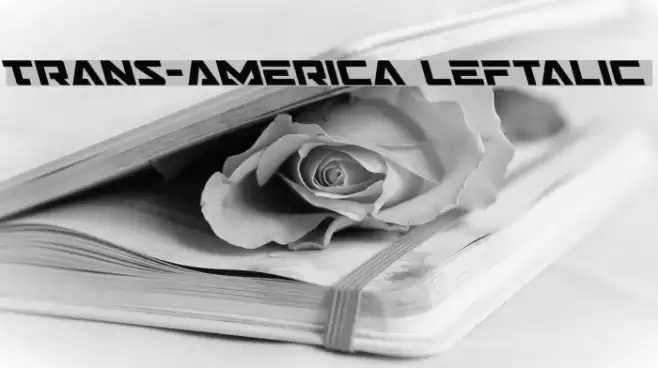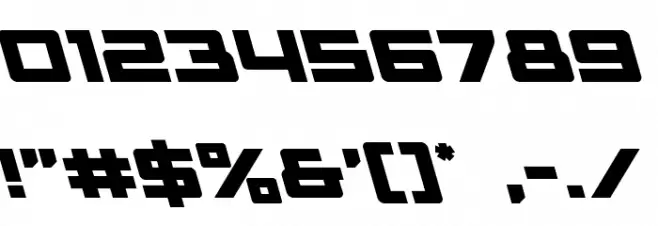
Trans-America Leftalic Font
Trans-America Leftalic Description
This font features a bold, geometric design with a futuristic flair. The characters are sharply angled, creating a dynamic and energetic appearance. The uppercase letters are particularly striking, with a strong presence that commands attention. The lowercase letters maintain the same angular style, ensuring consistency throughout. Numbers and special characters are equally bold and stylized, making them suitable for a variety of design applications. The overall design is modern and impactful, ideal for projects that require a strong visual statement.
A bold, geometric font with a futuristic and dynamic style from Uncategorized fonts.
- Proposed Projects: Ideal for branding, posters, video game graphics, and any project needing a modern, bold look.